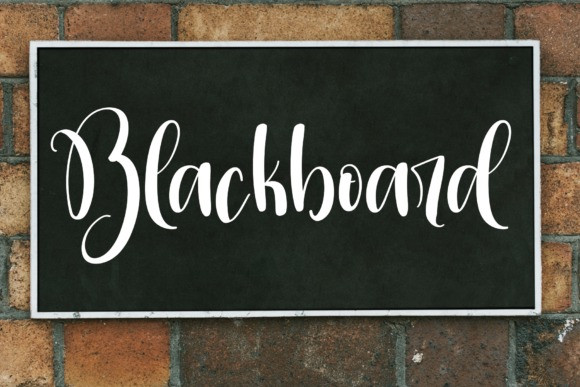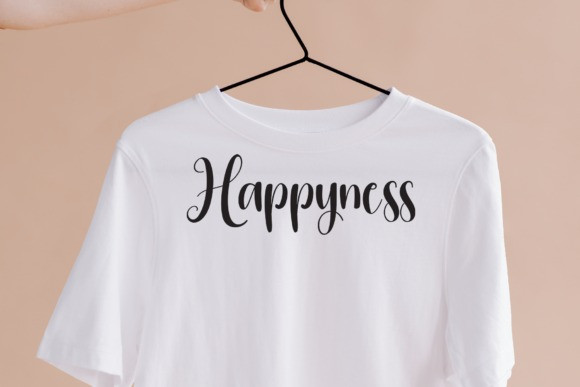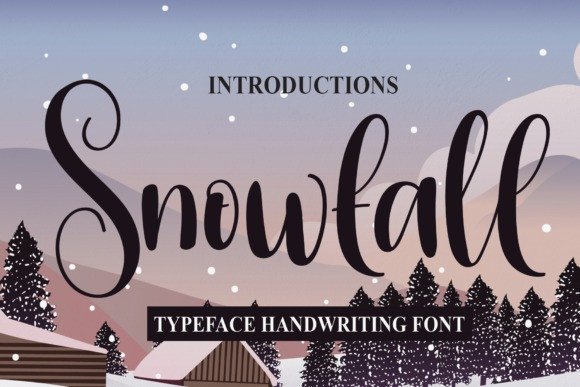
Snowfall Font
Snowfall Font is a free-flowing script font. This font features letters that are perfect for wall displays, wedding invitations, social media post logos, advertisements, product packaging and more.